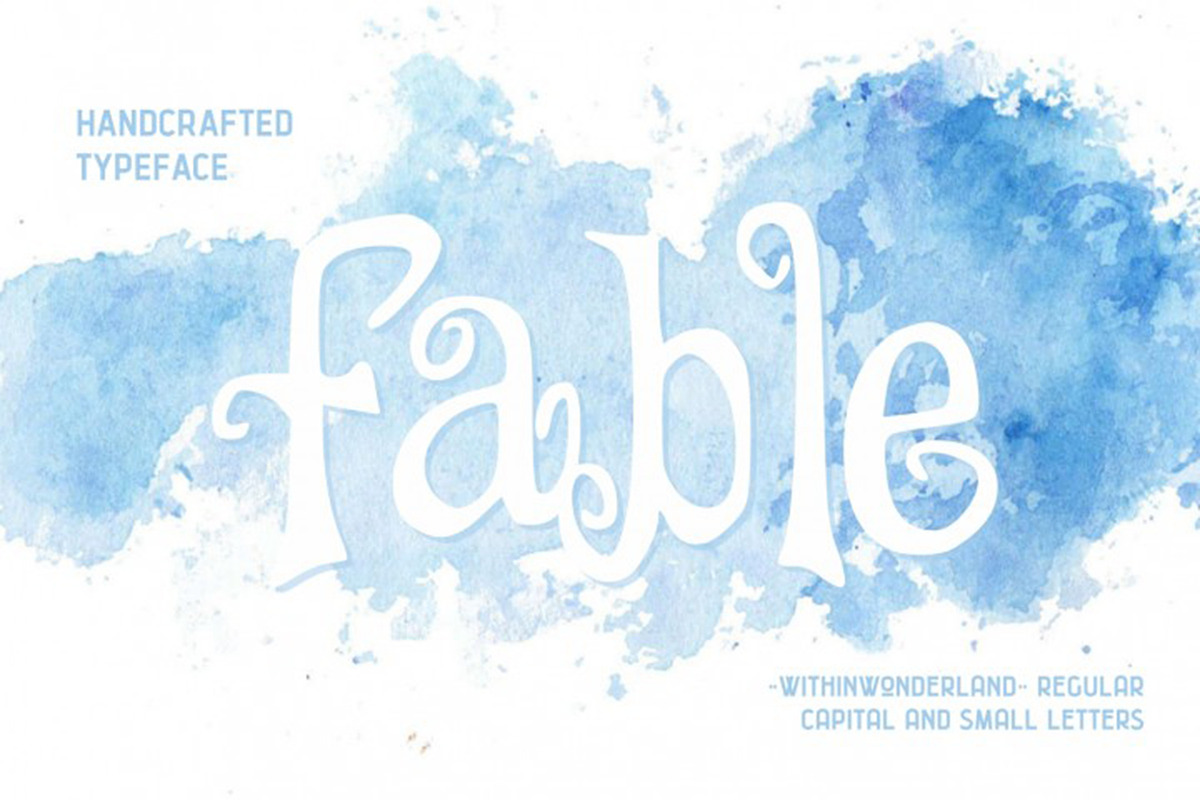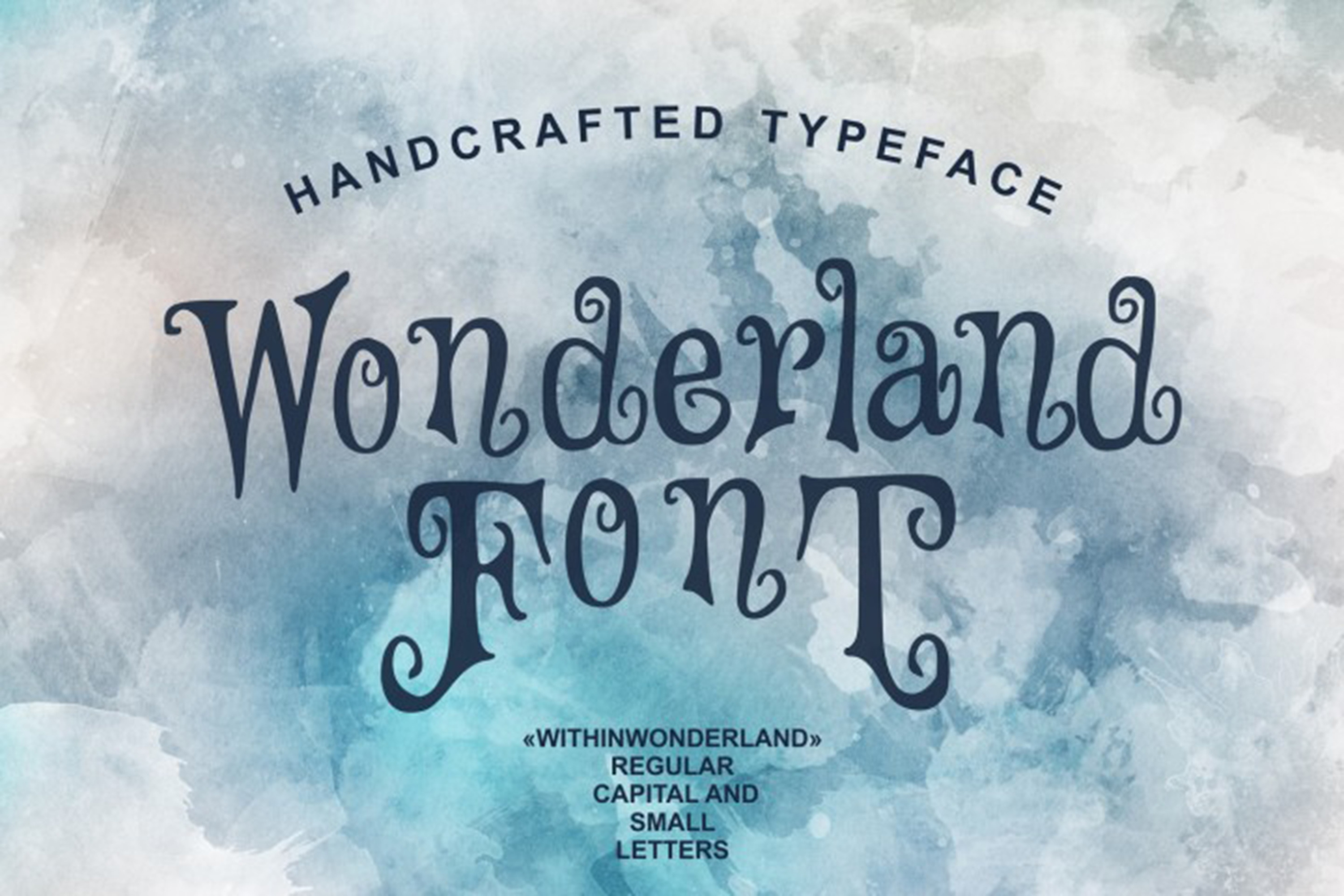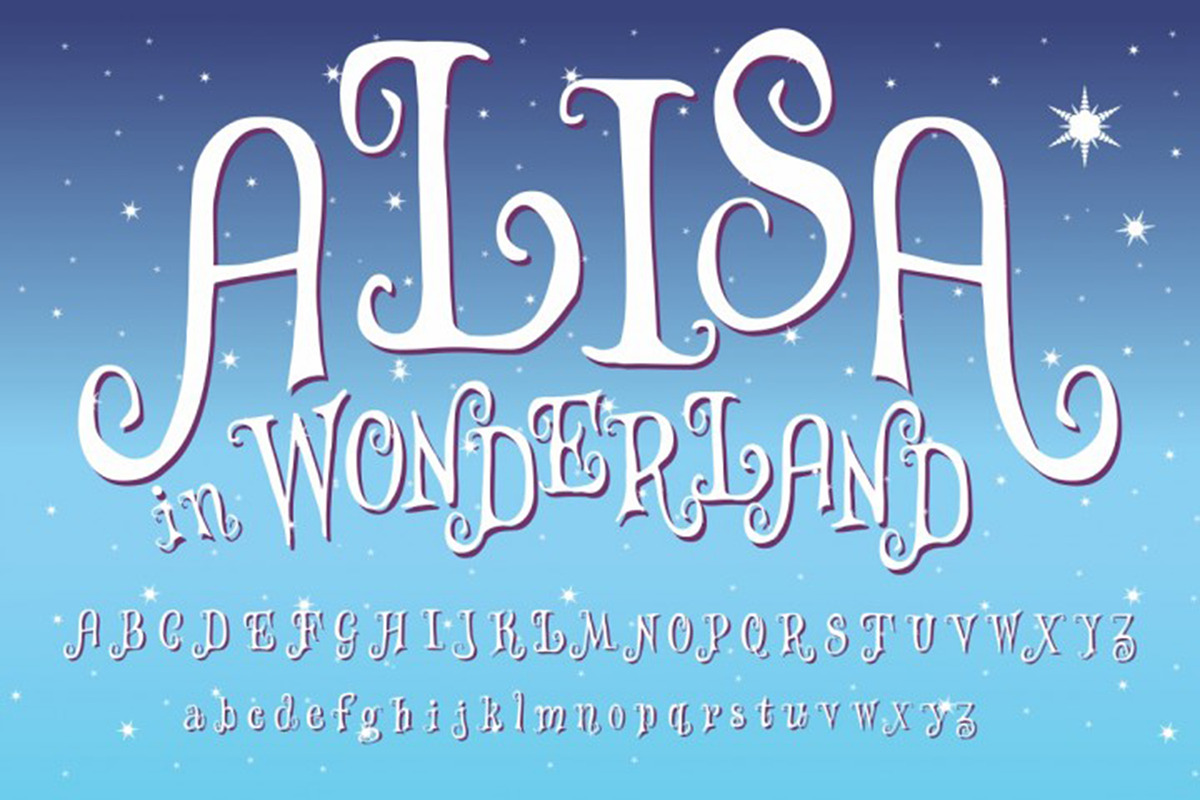
Wonderland - handcrafted typeface
WITHIN WONDERLAND
This font is ideally for children books design ideas or parties cards and invitations decoration. Fairy tale Within Wonderland country located somewhere in your childhood imagination and still reminds you about your childhood fantasies.
Irregular characters positioning makes it looking strange and full of fantasy. Clearly playful and inspired by medieval fairy tale novels.
Clearly playful and inspired by medieval fairy tale novels this font is not only for parties and celebrations and decorations, also it fits with greeting cards and Halloween type holidays and office pranks. Books, brochures with workbooks for teens and children will be very creative with this font decoration and stylish heading or text within.
Font consist only from letter characters. We've plan to update the numbers and special characters soon in next version of the font.